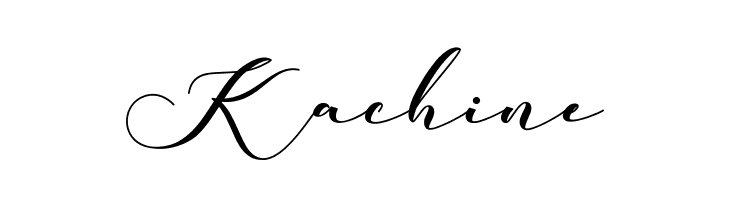
A playful, handwritten font with smooth, flowing lines and a casual style.
A playful, handwritten font with smooth curves and a casual style.
An elegant, flowing script font with intricate loops and flourishes.
A bold, brush-style font with dynamic, expressive strokes.
A classic serif font with elegant strokes and a timeless appeal.
A bold, robust serif font with strong, prominent strokes and pronounced serifs.
A bold, expressive handwritten font with fluid, dynamic strokes.
A refined and elegant script font with flowing cursive letters and dynamic contrast.
An elegant script font with intricate loops and swashes, perfect for sophisticated designs.
An elegant script font with intricate swirls and flowing lines.